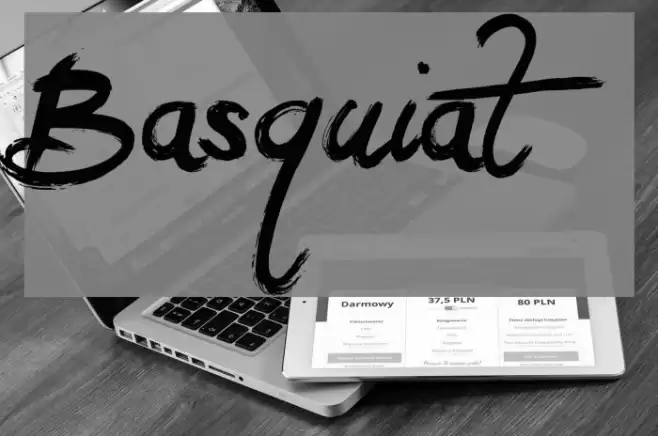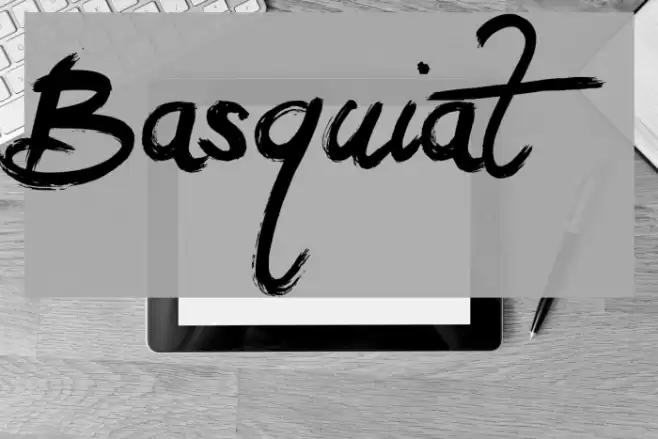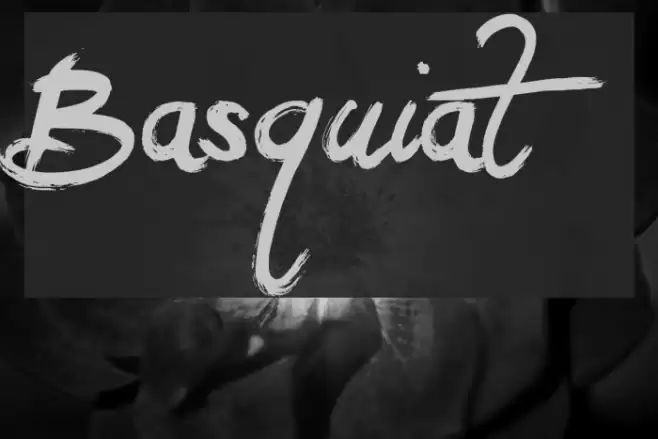
Basquiat Font
Basquiat Description
This font features a bold, expressive brush script style with a dynamic and artistic flair. The strokes are thick and textured, giving a sense of movement and energy. Each character is unique, with varying angles and curves that create a lively and spontaneous appearance. The uppercase letters are particularly striking, with dramatic flourishes and a sense of individuality. The lowercase letters maintain the same energetic style, with some characters featuring distinctive loops and swirls. Overall, this font exudes a sense of creativity and boldness, making it ideal for projects that require a strong visual impact.
A bold, expressive brush script font with dynamic and artistic flair from Uncategorized fonts.
- Proposed Projects: Ideal for art-related projects, creative branding, posters, and expressive headlines.